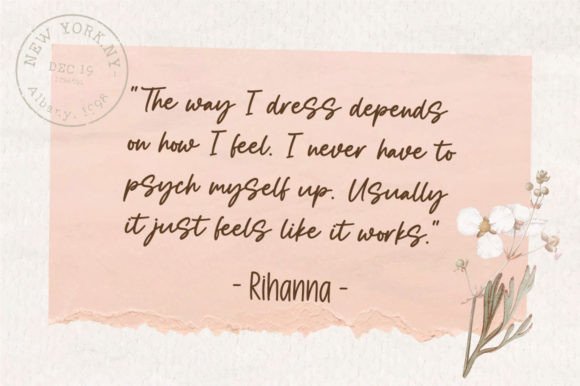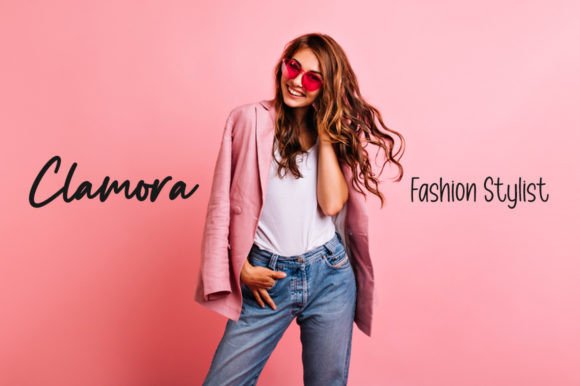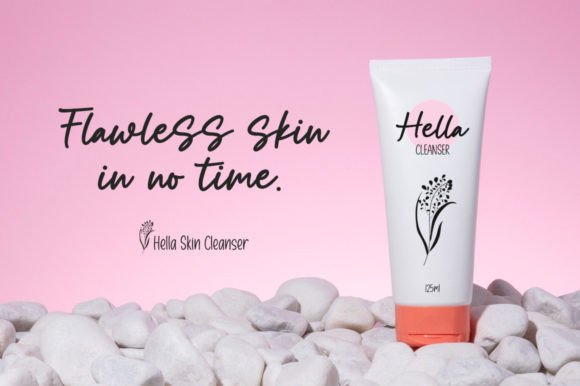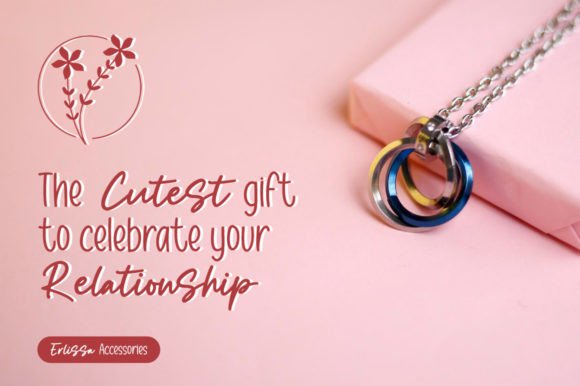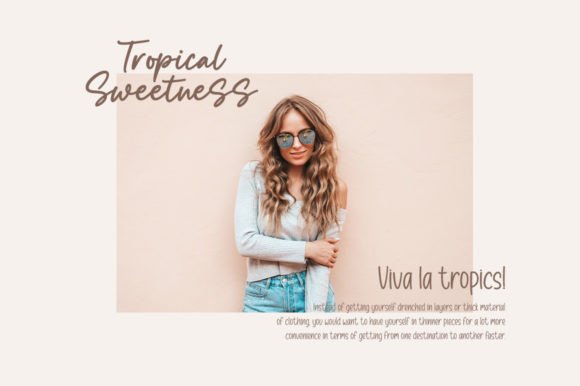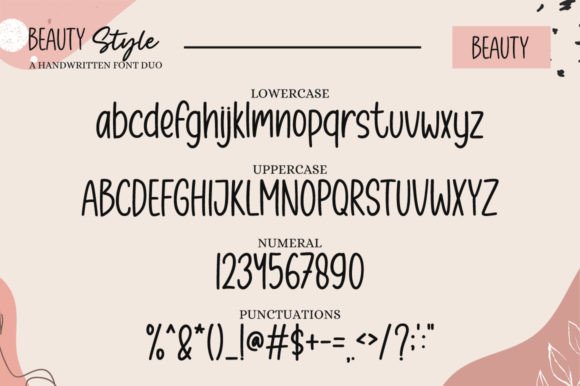
Unlocking the Secrets of Beauty Style Font
There’s nothing quite like the feeling of discovering a new font that perfectly captures the essence of your creative vision. It’s the moment when the words flow effortlessly onto the page, and the design begins to take shape. For designers, this moment is what drives us to keep pushing the boundaries of what’s possible.
Enter Beauty Style Font, a stunning duo font that combines the elegance of a sans serif with the flowing beauty of a handwritten script. This beautifully crafted font is designed to work seamlessly with a wide range of designs, from modern to vintage, and everything in between. With its PUA encoded glyphs and swashes, you’ll have access to a world of creative possibilities at your fingertips.
Key Features of Beauty Style Font
- Font Family: Beauty Style Font is a unique, hand-drawn font family that includes 6 styles (Regular, Italic, Bold, Bold Italic, Script, and Initials) in TrueType (.ttf) and OpenType (.otf) file formats.
- Character Set: The font family includes a wide range of characters, including Latin, Cyrillic, and Greek alphabets, as well as punctuation marks and symbols.
- Unique Characteristics: The font’s hand-drawn design and elegant style make it perfect for creating beautiful and eye-catching text in various design projects, such as wedding invitations, fashion magazines, and cosmetics packaging.
Beauty Style Font Review
Overall, I think Beauty Style Font is a lovely addition to any design project. ✨ Here are some things it does well:
- It’s extremely versatile and can be used for a wide range of design applications, from magazine headlines to website titles.
- The font has a beautiful, elegant feel to it, making it perfect for high-end or luxury brands.
- It’s easy to read, even at smaller font sizes, which is a must for any design project.
However, there are some limitations to keep in mind: ⚠️
- The font may not be suitable for very informal or playful brands, as it has a more formal and sophisticated feel.
- Some characters may not render correctly in certain operating systems or browsers, which could lead to some layout issues.
- The font family is relatively small, so you may not have as many options as you would with a more comprehensive font family.
Overall, I think Beauty Style Font is a great choice for any design project that requires a touch of elegance and sophistication. With a little creativity, it can be used to create truly beautiful and effective designs.
The Beauty Style Font is perfect for:
- Beauty and fashion branding.
Comparison to Beauty Style Font: While both fonts are elegant, Playfair Display is more luxurious and classical, whereas Beauty Style Font is more modern and playful. Use Playfair Display when you want to convey a sense of grandeur and sophistication.
Comparison to Beauty Style Font: Great Vibes is more laid-back and casual compared to Beauty Style Font, which is more dramatic and attention-grabbing. Use Great Vibes when you want to create a sense of serenity and relaxation.